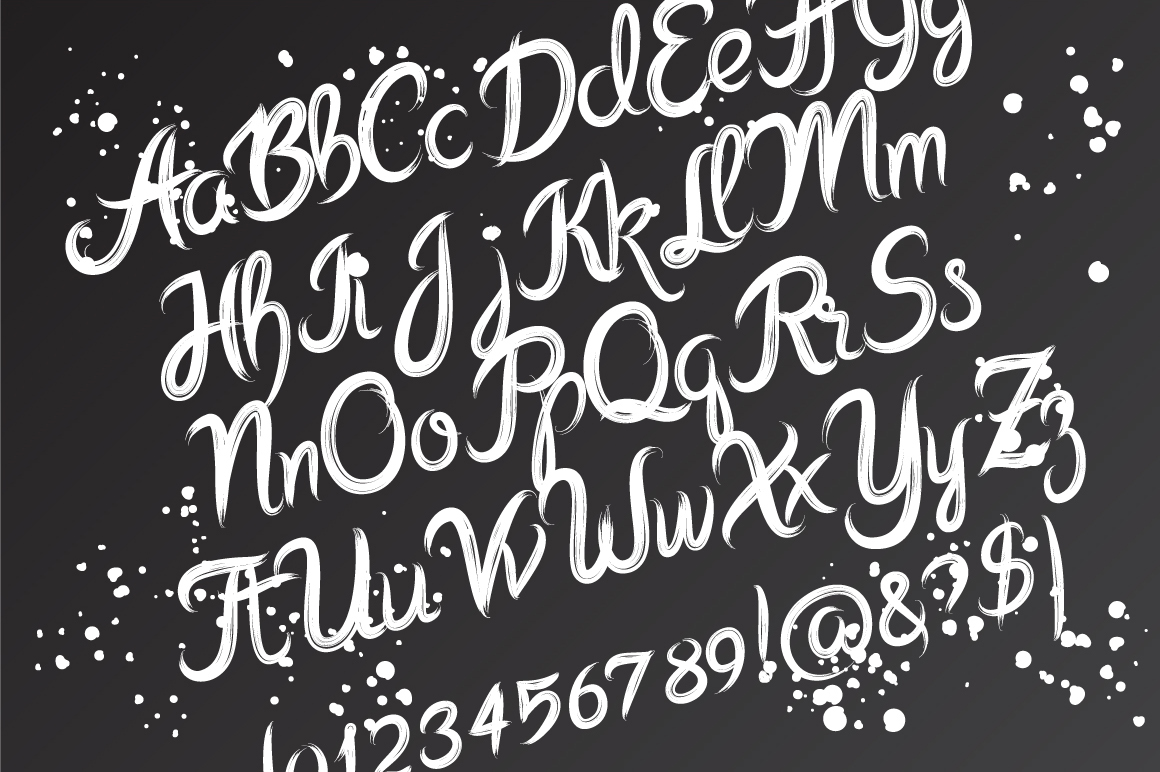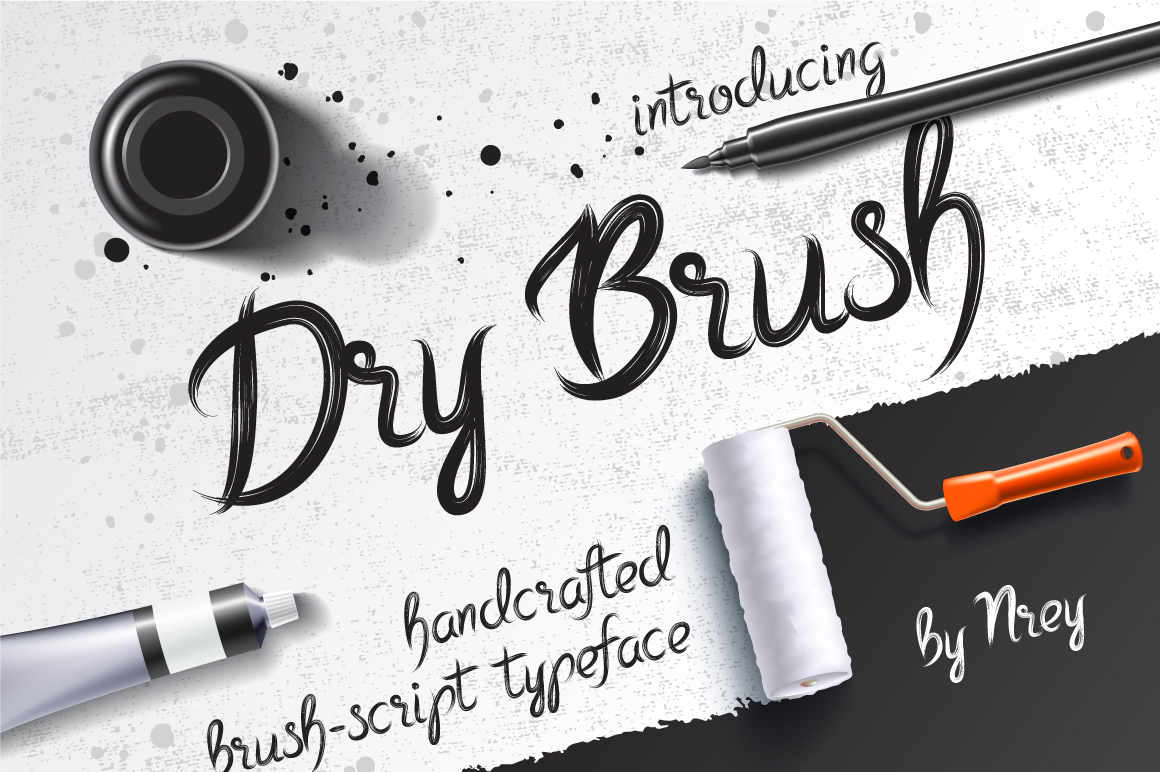
Dry Brush (1 font)
Introducing the new handcrafted typeface - Dry Brush which is a brush pen script font with cool characters. Dry Brush typeface works well with my other typeface DieCunst which contains brush pen font letters, and compliments Dry Brush. Dry Brush works well with normal size text, large displays or short words.
Dry Brush features: